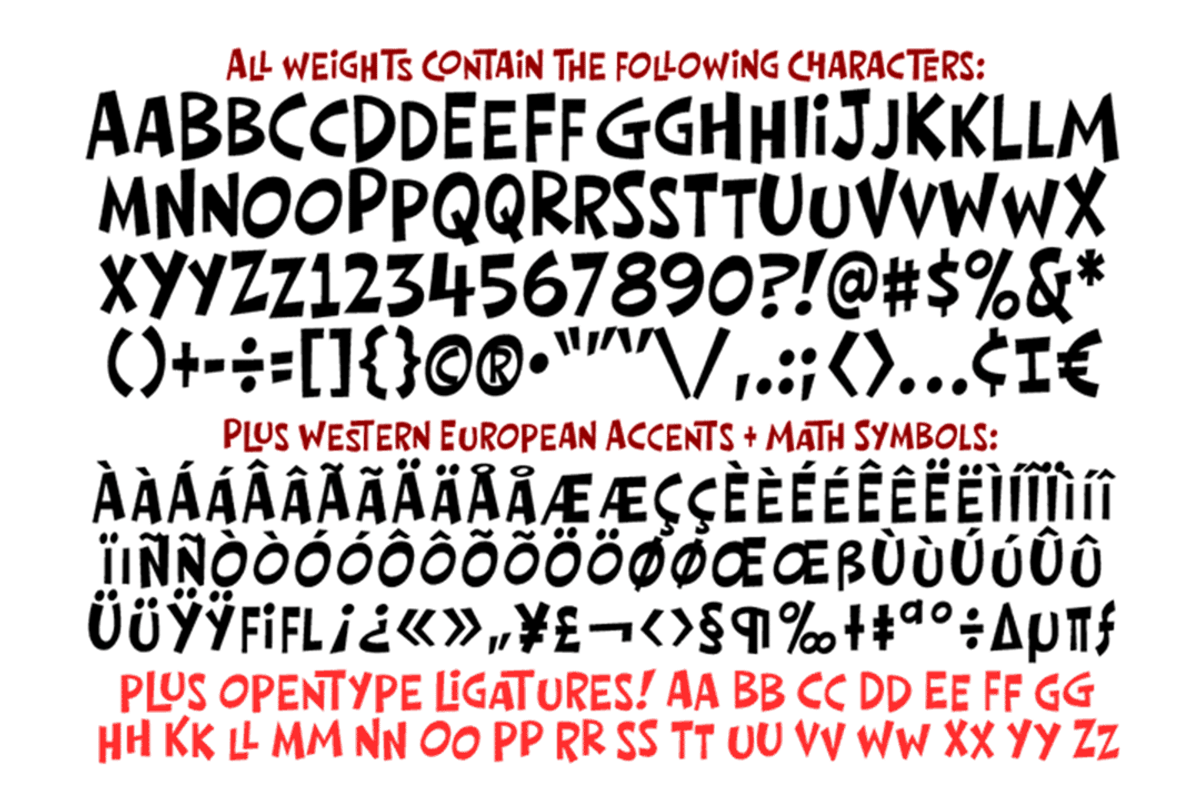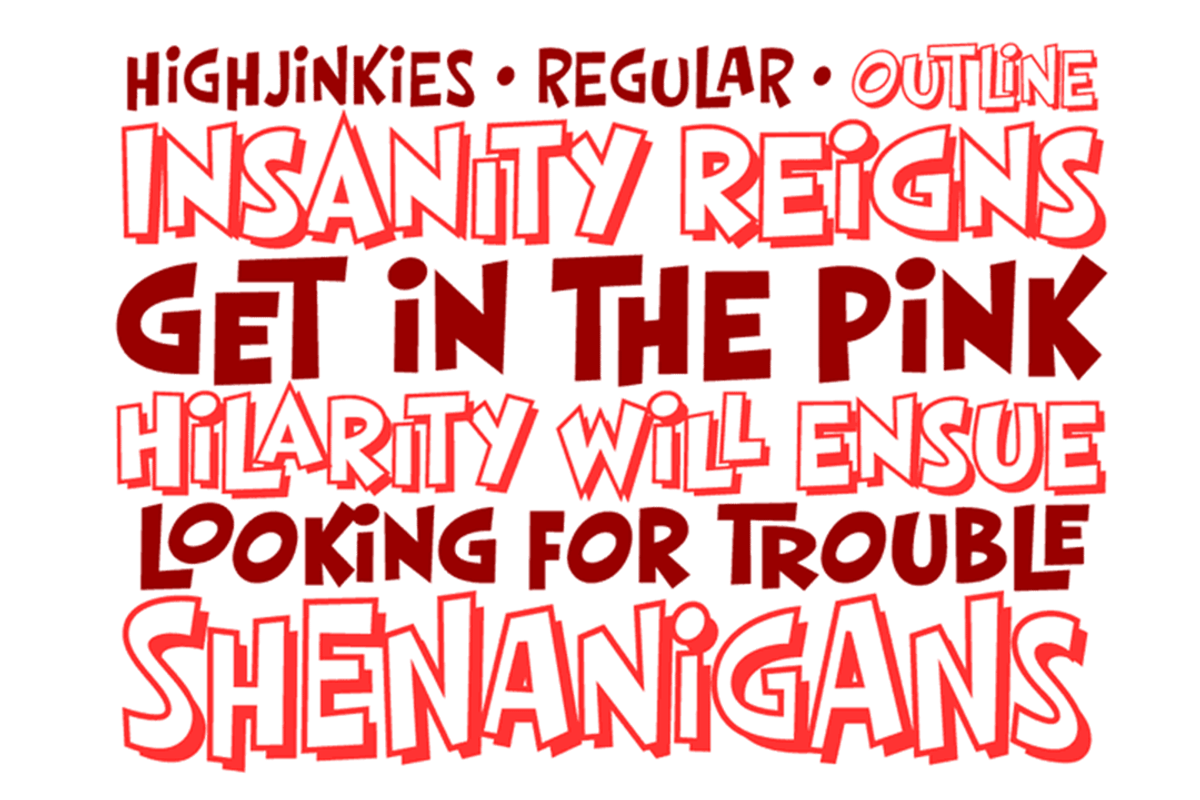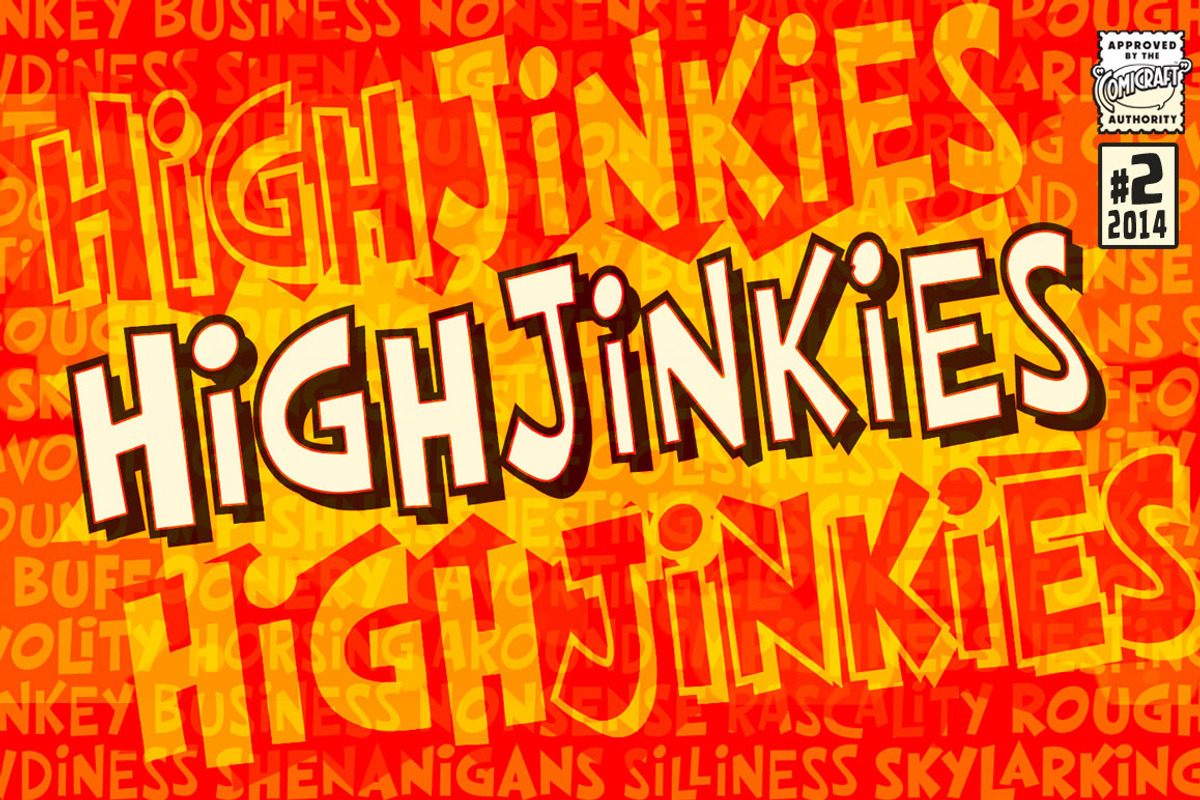
High Jinkies - fun bouncy comic font
High Jinkies - fun bouncy comic font by Comicraft Fonts is a font selected for branding, posters, packaging, typography.
Why High Jinkies - fun bouncy comic font is worth a look
High Jinkies - fun bouncy comic font by Comicraft Fonts fits naturally into Branding, posters, packaging, typography.